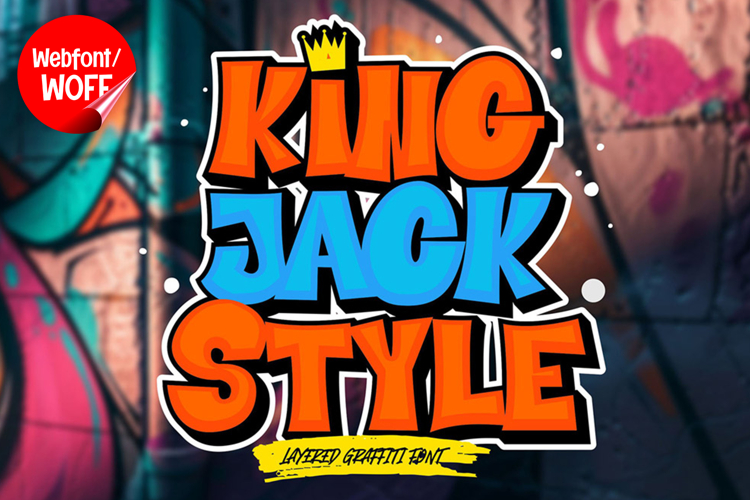
King Jack Style | 3D Layered Graffiti Webfont for Urban Styl
King Jack Style is a 3D layered graffiti webfont created to deliver bold depth and strong street-style presence in modern website design. Inspired by classic graffiti lettering and enhanced with dimensional layering, this font brings a powerful visual impact that instantly captures attention. Its thick structures and shadowed layers create a sense of volume, making it perfect for projects that need a standout typographic identity.
King Jack Style features a complete set of uppercase characters designed with bold graffiti forms and layered depth. The 3D construction gives each letter a striking dimensional effect, making it ideal for headlines, banners, hero sections, and featured content. The strong shapes help establish a clear visual hierarchy, guiding attention to key elements within the design.
In addition to letters, the font includes numbers and punctuation, allowing for flexible use across various website components. It works well for promotional text, event announcements, pricing displays, and navigation highlights. Each character maintains the same layered graffiti style, ensuring consistency and cohesion throughout the layout.
With multilingual support, King Jack Style includes a wide range of accented characters, making it suitable for international websites and global audiences. This allows content to be presented clearly across different languages while maintaining the bold and expressive graffiti aesthetic.
The 3D layered graffiti style of King Jack Style makes it especially suitable for urban-themed websites, streetwear brands, music platforms, gaming interfaces, and creative portfolios. Its dimensional look adds depth and movement, helping designs stand out in competitive digital spaces. The graffiti influence brings authenticity and a strong street-inspired character that resonates with modern audiences.
Despite its bold and layered appearance, King Jack Style is designed with readability in mind. The spacing and structure of each character are carefully balanced to ensure clarity, particularly in display sizes. This makes it effective for impactful headings and short text elements where both style and legibility are essential.
King Jack Style is a webfont that combines graffiti aesthetics with dimensional design and modern digital usability. Its bold shapes, layered depth, and urban energy create a distinctive typographic presence that enhances website design. For projects that require strong visual impact, creative expression, and a dynamic street style, King Jack Style offers a powerful and engaging solution.